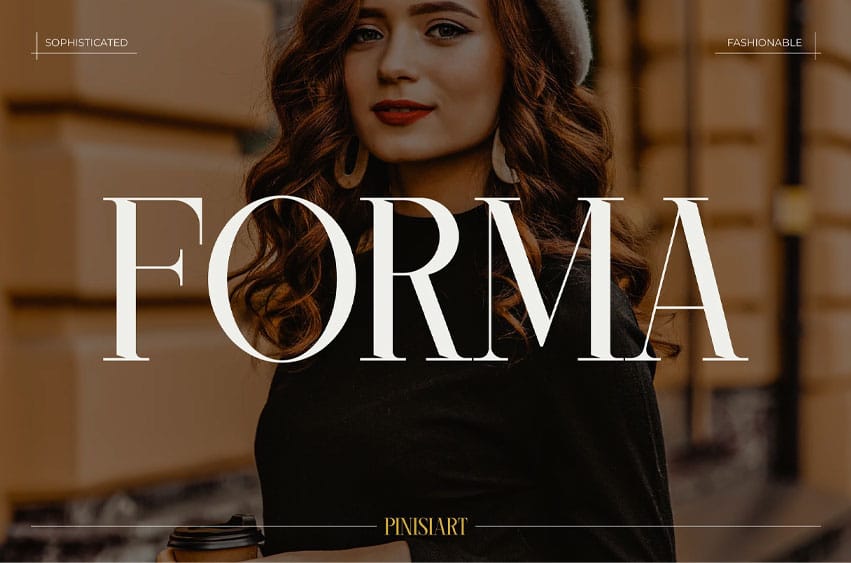
Forma Font is an elegant, high-contrast serif display font designed to elevate fashion branding, editorial layouts, and high-market campaigns. Its sharp terminals and refined proportions create a confident, timeless look, while the generous spacing ensures excellent readability in both print and digital applications. The tall, graceful letterforms exude style and authority, making it ideal for brands that want to project sophistication and impact.
Whether you’re designing a high-end magazine spread, crafting statement-making social media graphics, or producing fashion week invitations, FORMA delivers the kind of visual prestige that turns heads. Its structural balance between elegance and boldness ensures it works flawlessly in branding, packaging, posters, and seasonal campaigns, giving your projects a modern yet classic edge.
Key Features Why Designers Love FORMA :
- High-contrast strokes for a striking aesthetic
- Elegant serif details perfect for upscale branding and editorials
- Versatile proportions that adapt to headlines, banners, and logos
- Refined curves & terminals for a professional, polished look
- Fashion-forward vibe suitable for trend-driven markets